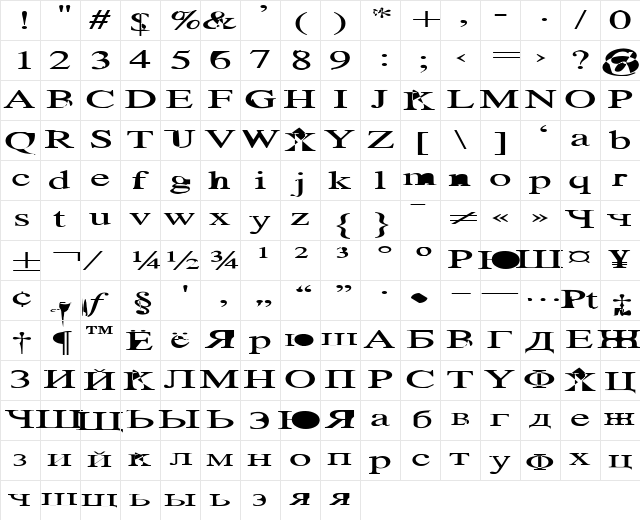
Complete Izwestja_Bold Normal glyph index. Displaying only characters natively supported by Izwestja_Bold Normal font.
Izwestja_Bold is a composed and adaptable typeface that performs quietly and consistently across a wide range of design contexts. Its bold stroke weight gives it real presence on the page.